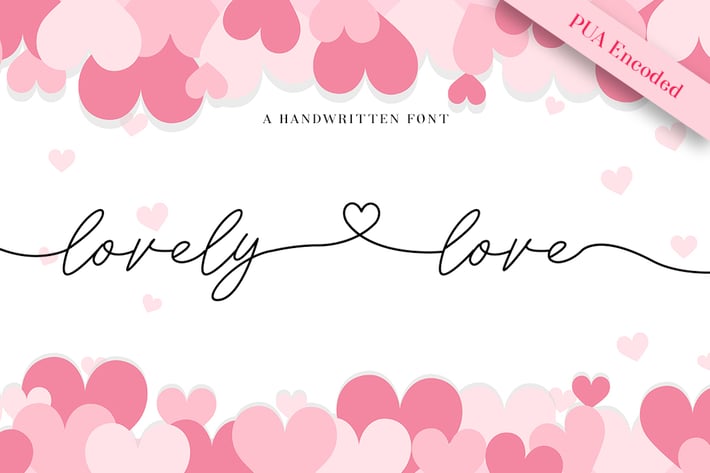
Lovely Love - Handwritten Font
Lovely Love script is perfect font pairing with tails alternates character.
Lovely Love script is a modern hand lettering script. It's allowing you to create beautiful hand-made typography
in an instant.
Lovely Love script is to use for any kind of design such as branding projects,
logo, brochures, business card, wedding designs, social media posts, advertisements, product packaging,
product designs, label, photography, watermark, invitation, brand company, stationery and any
projects that need handwriting taste.
+ Ballistick with Regular style
+ Ballistick with Swash